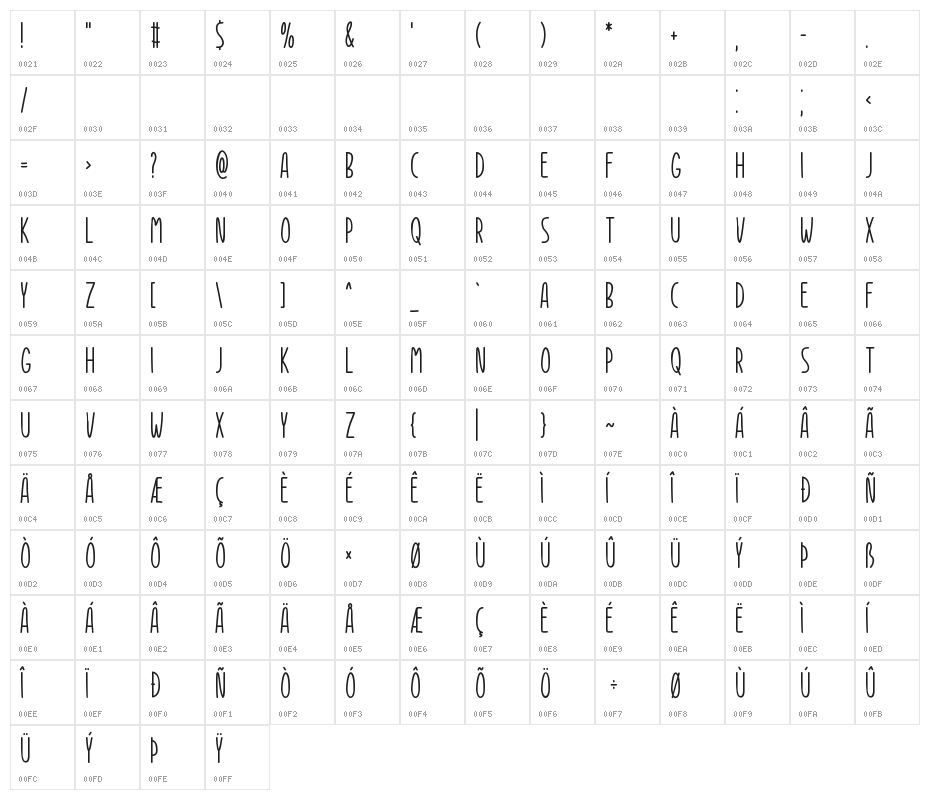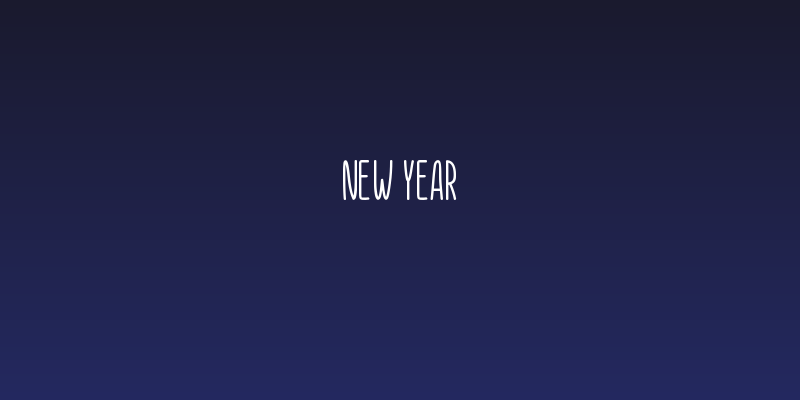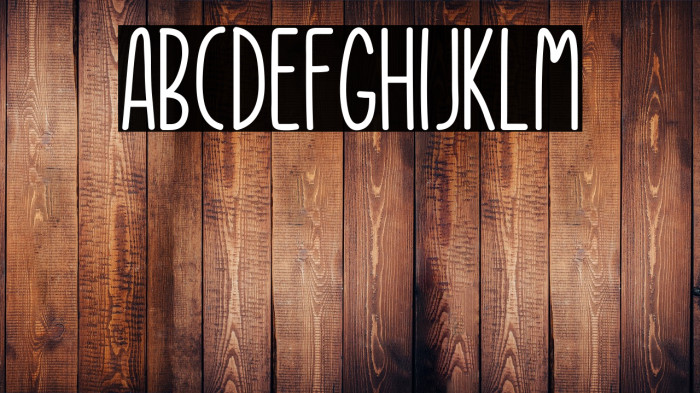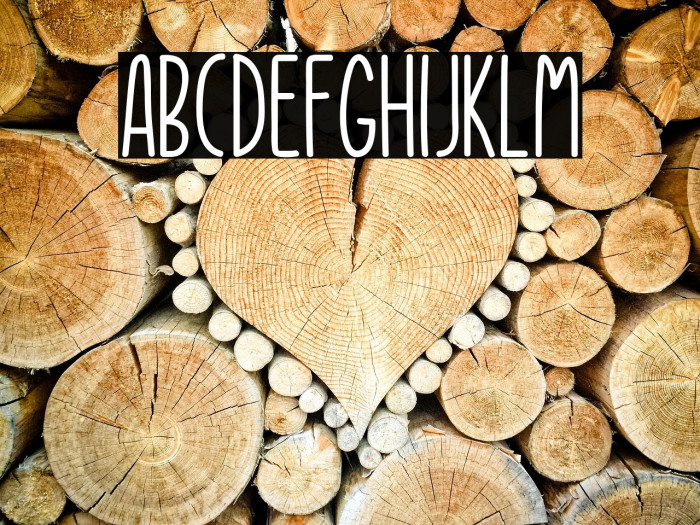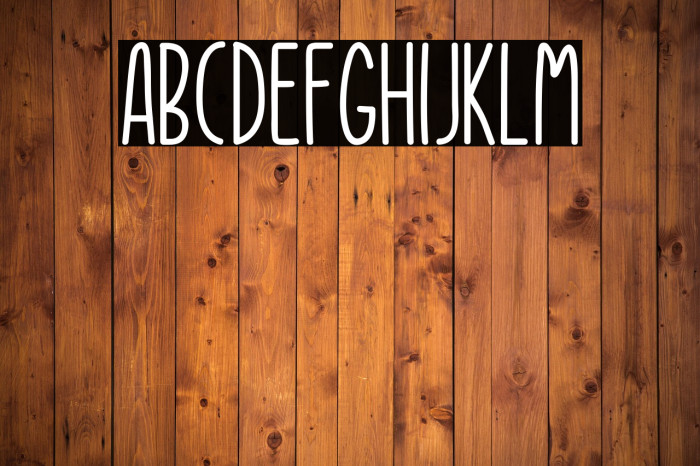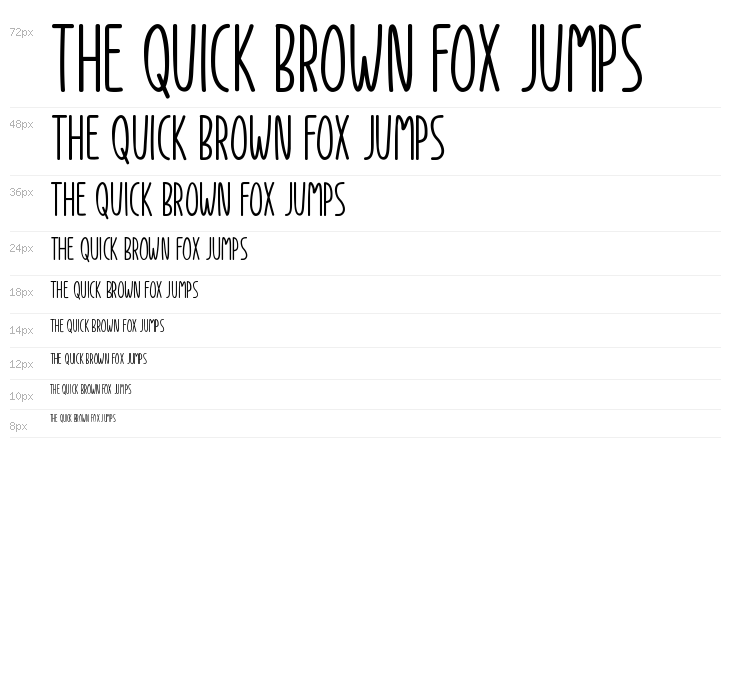
New Year Font
New Year Description
This font features a playful and modern design with tall, narrow letters that have a handwritten feel. The characters are evenly spaced, creating a clean and organized appearance. The strokes are consistent in width, giving the font a uniform look. The rounded edges add a touch of softness, making it approachable and friendly. It's well-suited for projects that require a casual yet stylish aesthetic, such as invitations, greeting cards, or branding materials. The font includes a full set of uppercase and lowercase letters, numbers, and a variety of special characters.
| Proposed Projects | Ideal for invitations, greeting cards, branding, and casual design projects. |